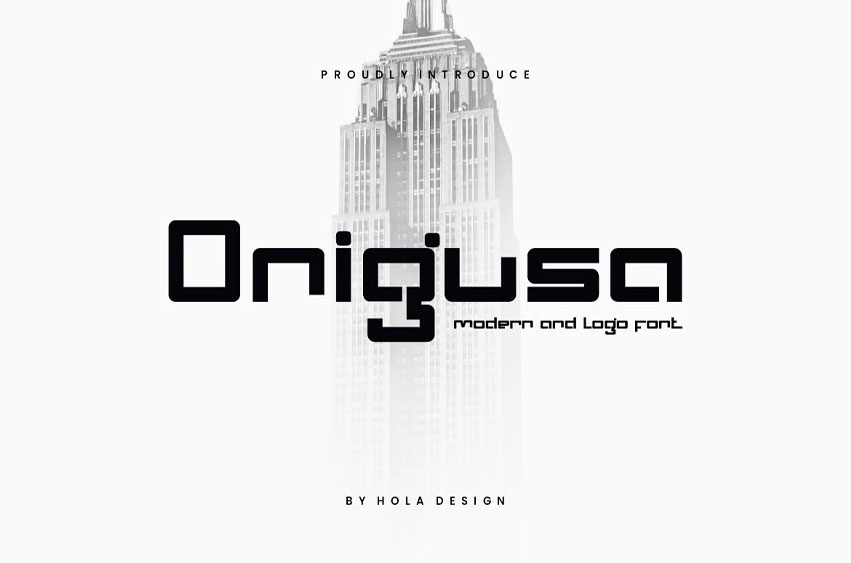
Onigusa Font Modern & Logo Font Font is unique.
Ready to use for your design like labeling, movie sceen, poster, movie title, gigs, album covers, logos, and much more.